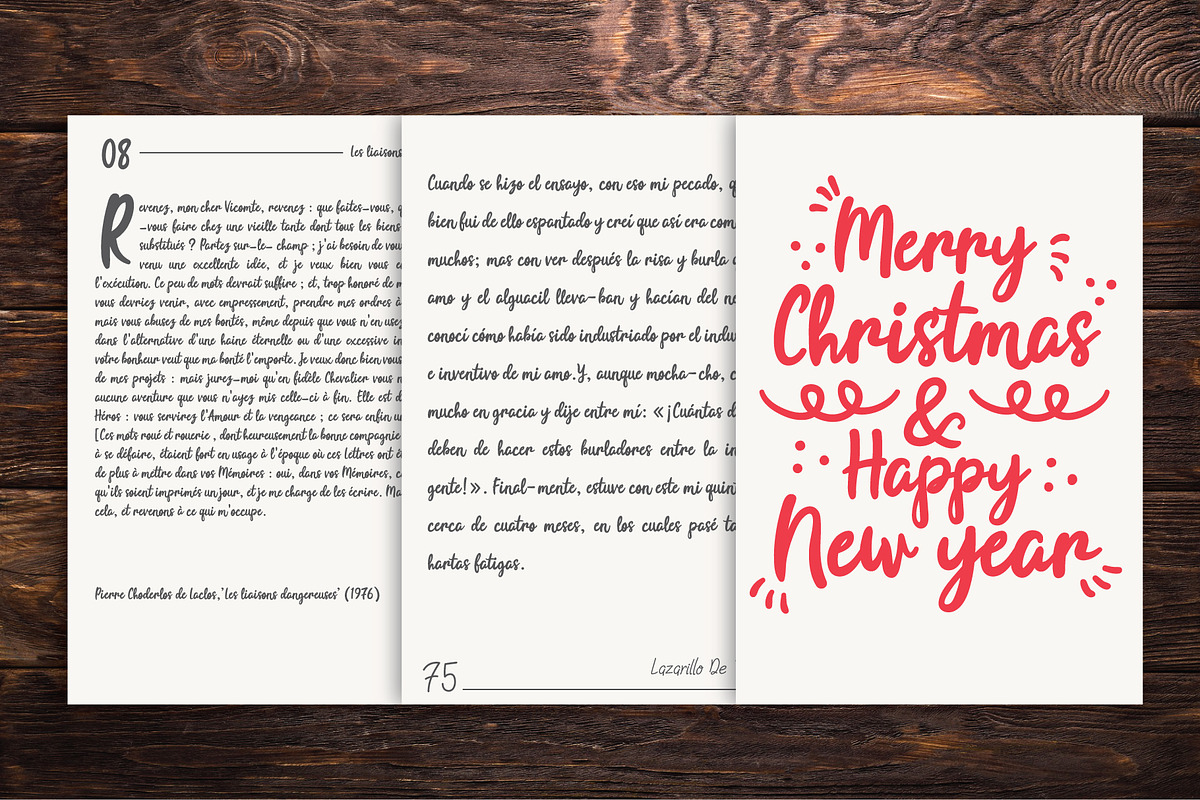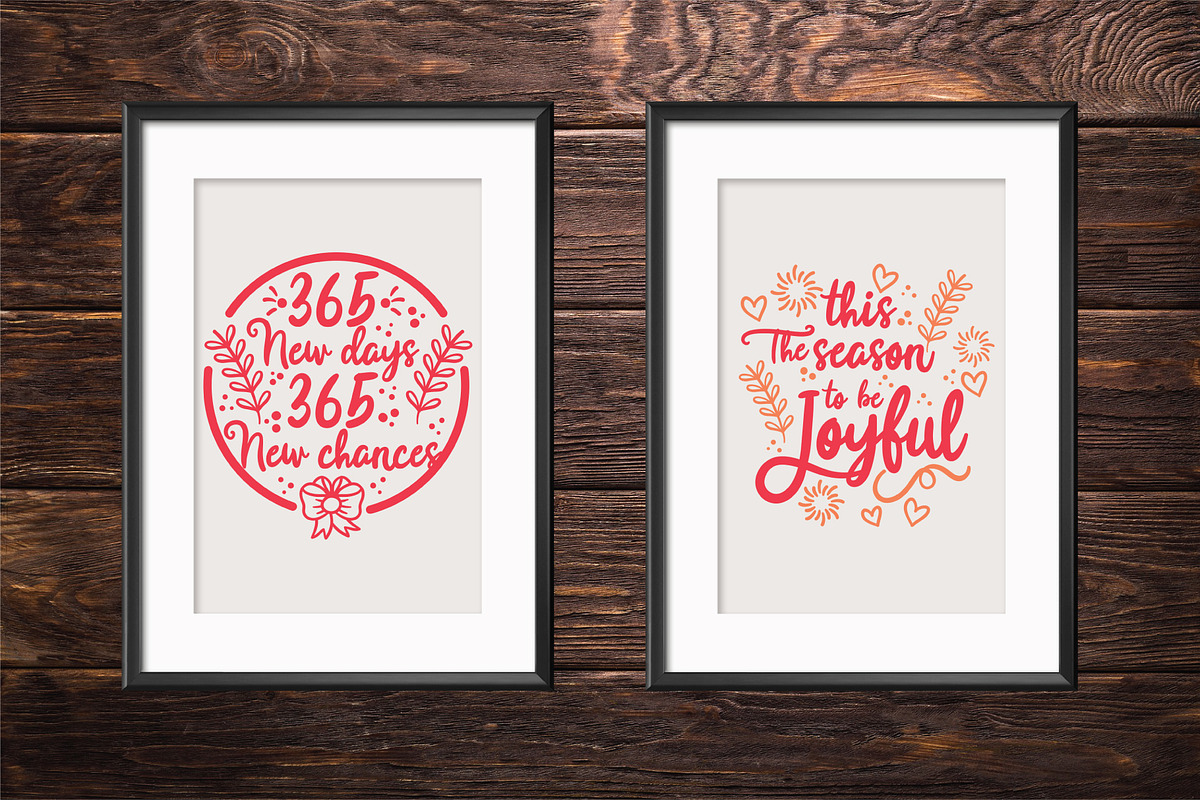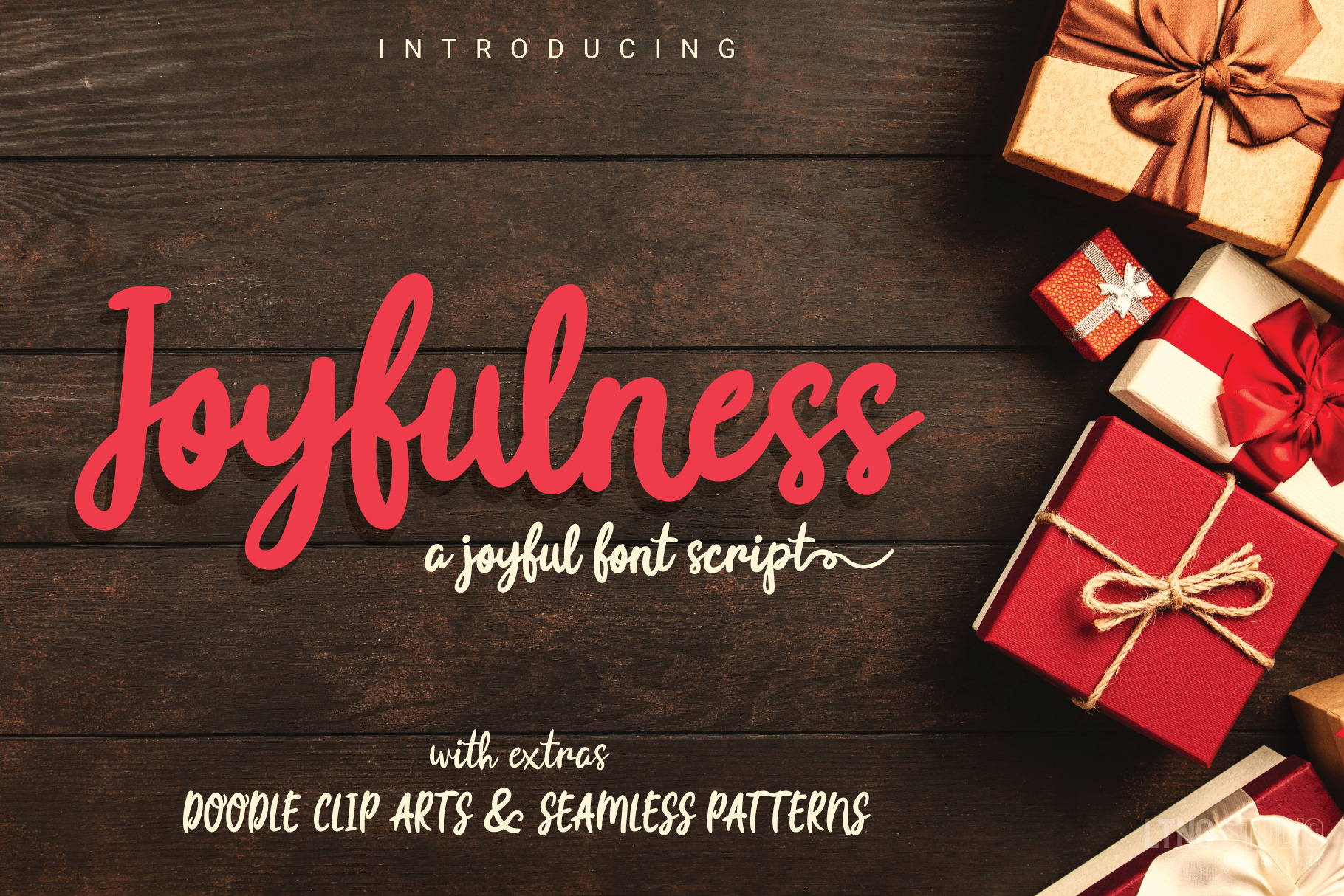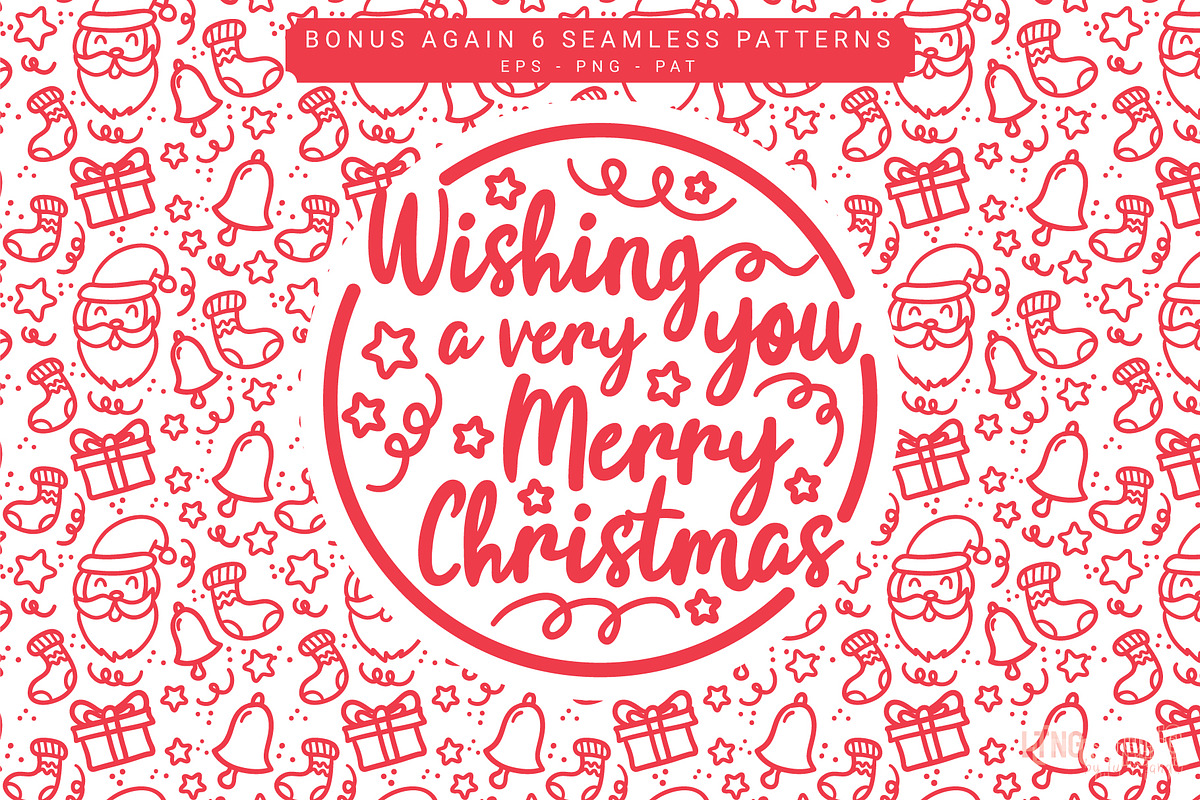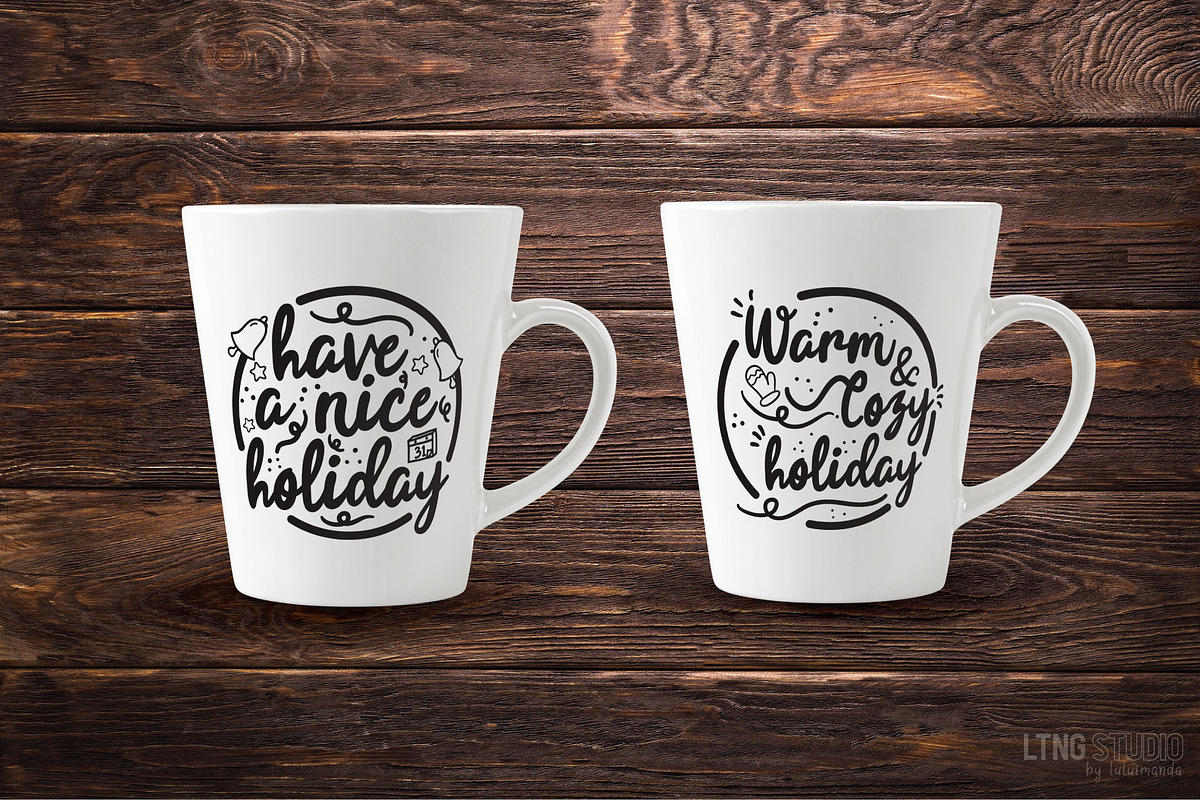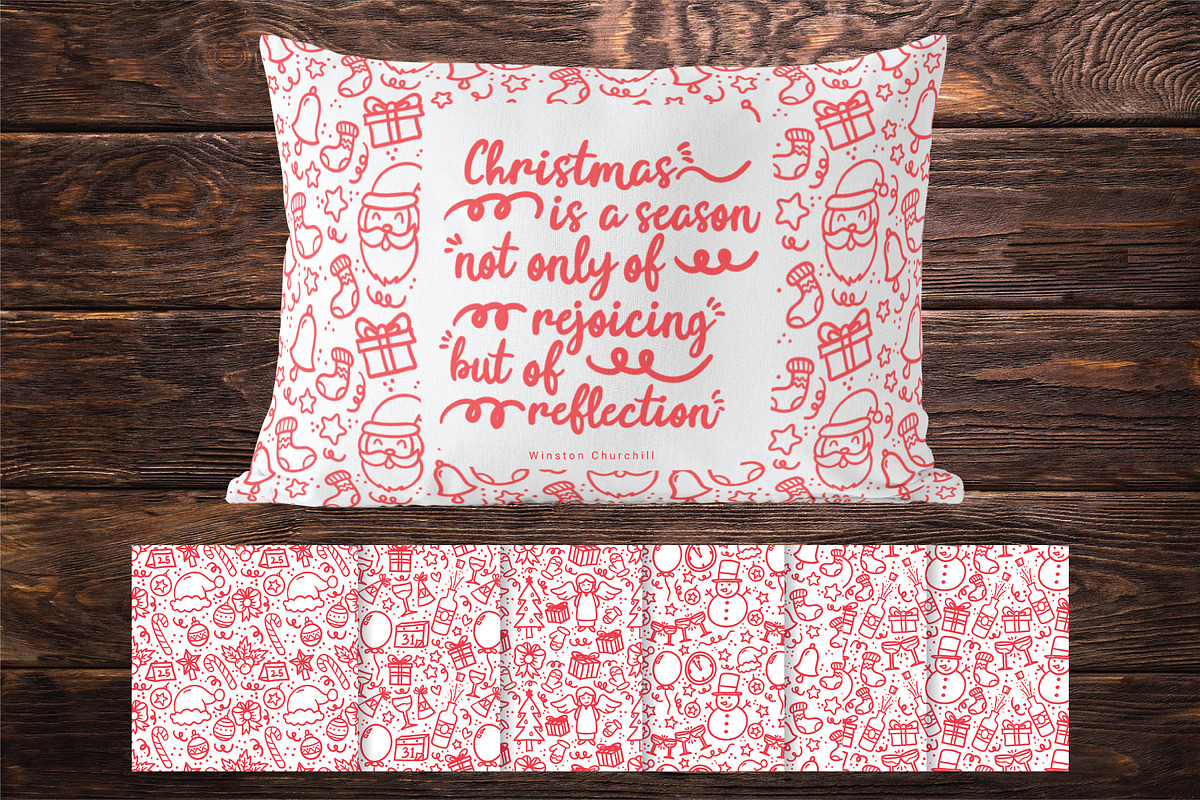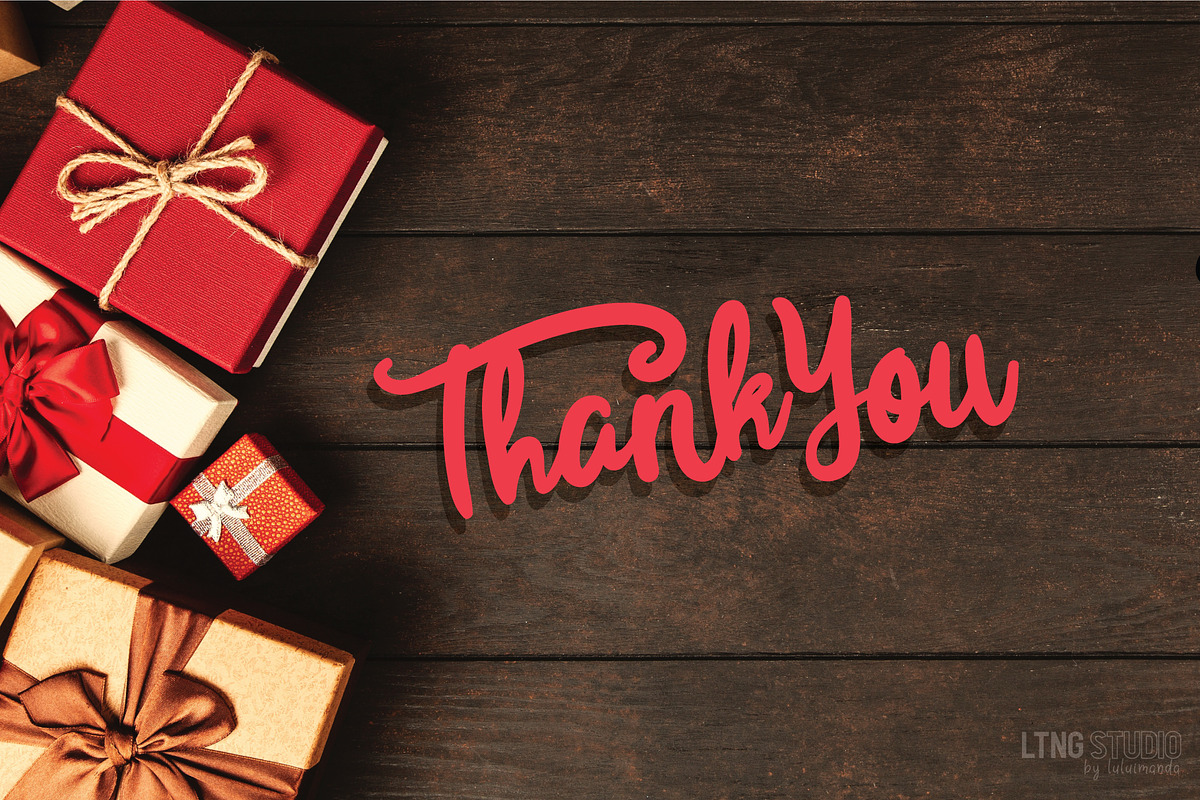
Joyfulness Script Font with Extras
Get ready for your joyful holiday with our new collection Joyfulness font script with extras. Combine Joyfulness font script with bonus of doodle cliparts and seamless patterns to make nice design for your holiday such as greeting cards, branding, social media post, advertisements, product designs, magazine and etc.
- Joyfulness-script with 2 types (semi light and italic) : unique bold free flowing script with various alternates and ligatures (OTF & TTF)
- Joyfulness-Elements : holiday elements and doodle for your projects (OTF & TTF)